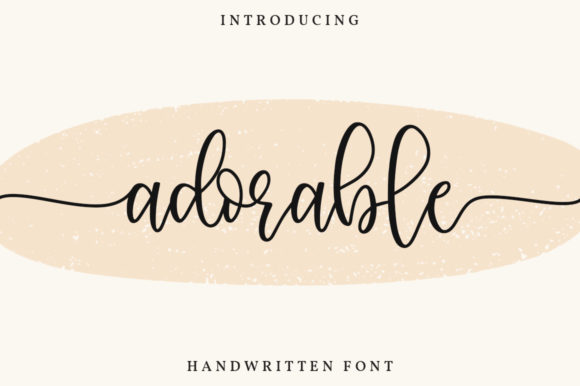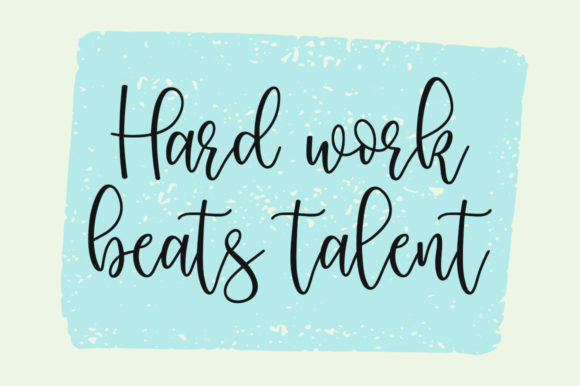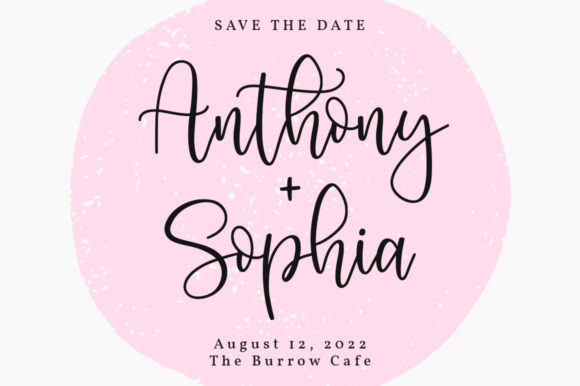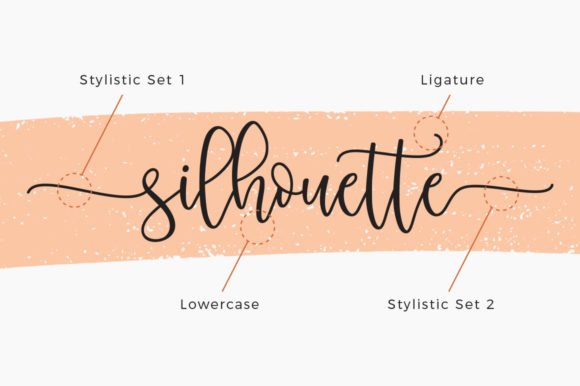
Adorable Font
About the Adorable Font
Explore the possibilities with Adorable Font, a font that offers both beauty and functionality. Adorable is a modern calligraphy font with smooth flows. This lovely font is perfect for logos, wedding stationery, cards, gift designs, photography, watermark, product packaging and handwritten quotes. It is PUA encoded which means you can access all of the glyphs and swashes with ease!
Adorable Font’s flowing forms excel in projects requiring a touch of elegance and personality. It’s ideal for branding applications needing a handcrafted feel, particularly logos, short headlines, and packaging for luxury or artisanal goods. However, its calligraphic nature makes it less suitable for body text or UI elements where readability is paramount.
Consider pairing Adorable Font with a clean sans-serif like Lato for a balanced contrast, or a more geometric sans-serif such as Montserrat for a modern twist. For a more luxurious feel, a subtle serif like Playfair Display could work well. Avoid pairing it with other script fonts, as this could lead to visual clutter.
Adorable Font projects a friendly, yet sophisticated personality. Its overall mood is romantic and approachable, making it a strong choice for brands aiming for a charming and memorable aesthetic.
Adorable Font Usage Examples
Adorable Font Example